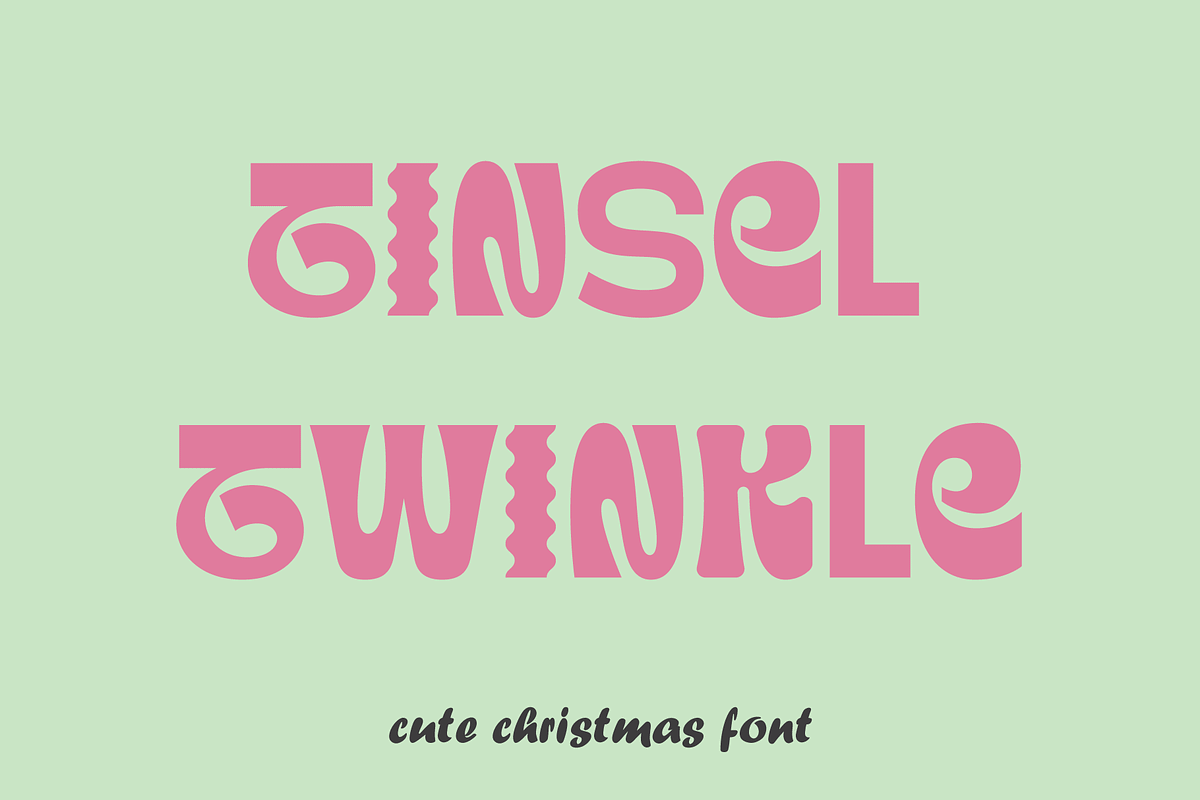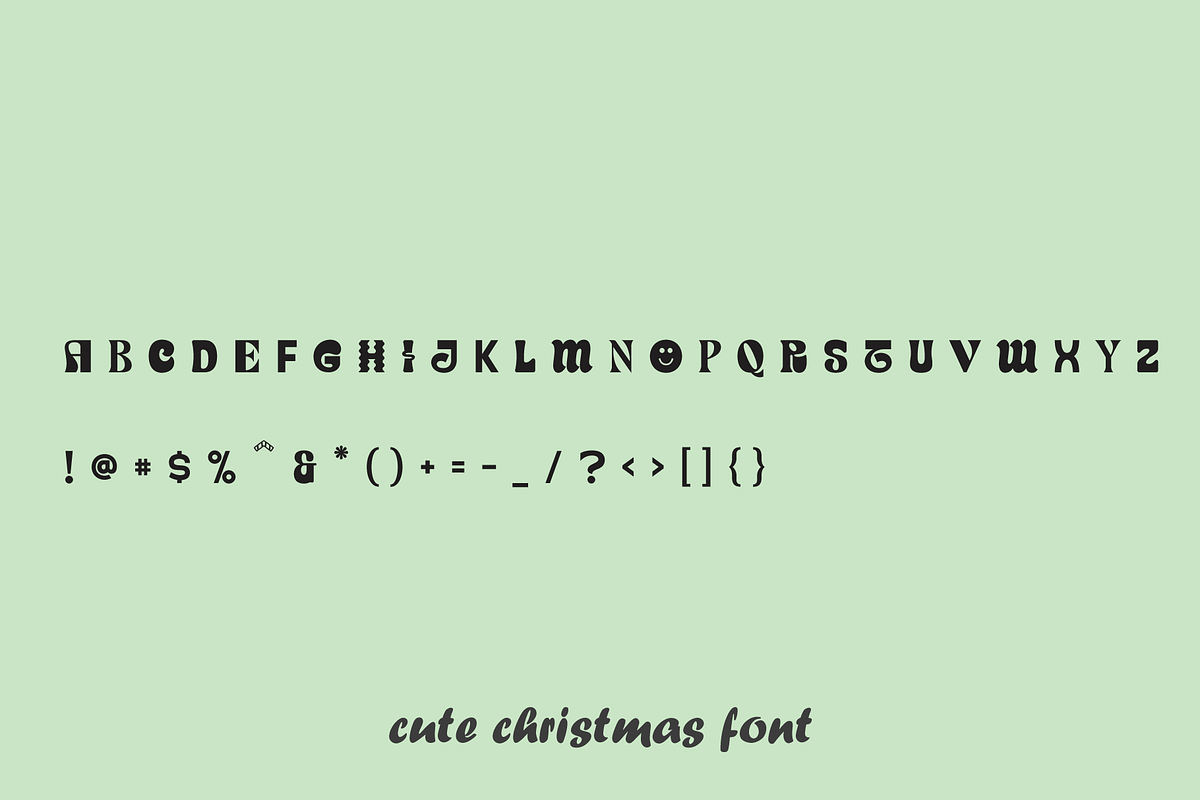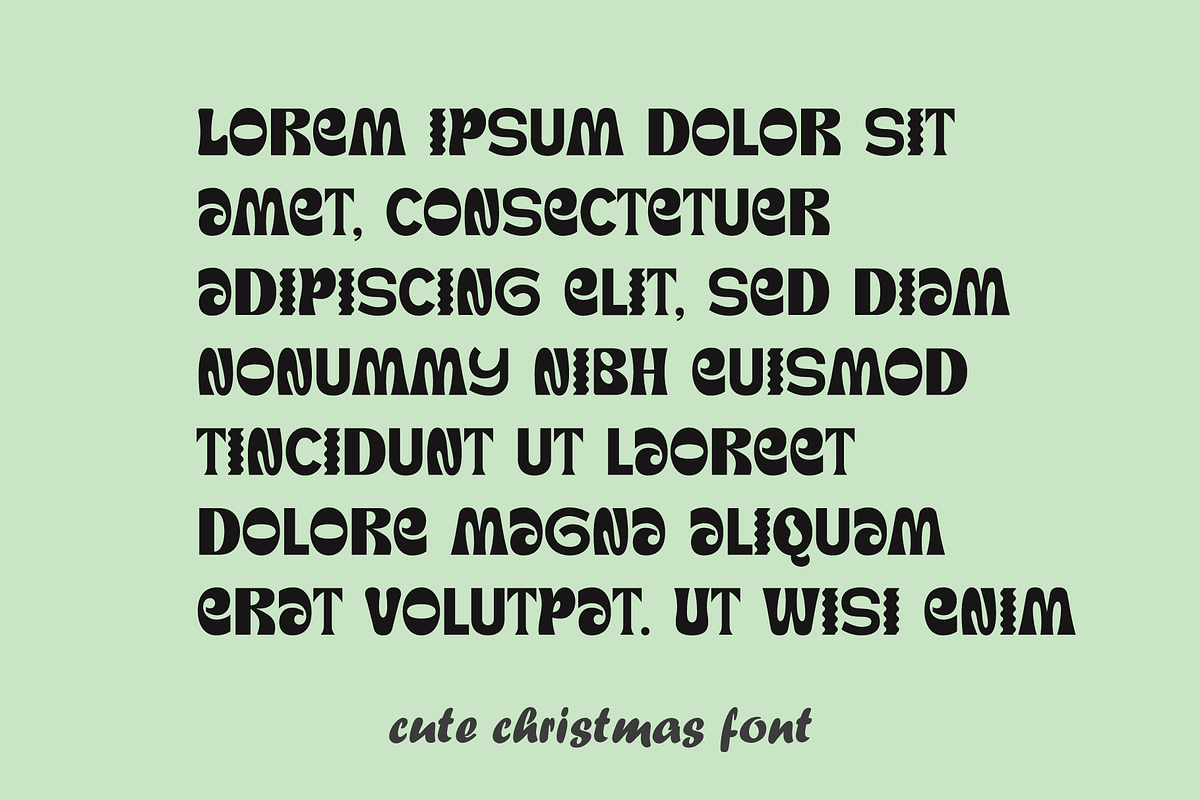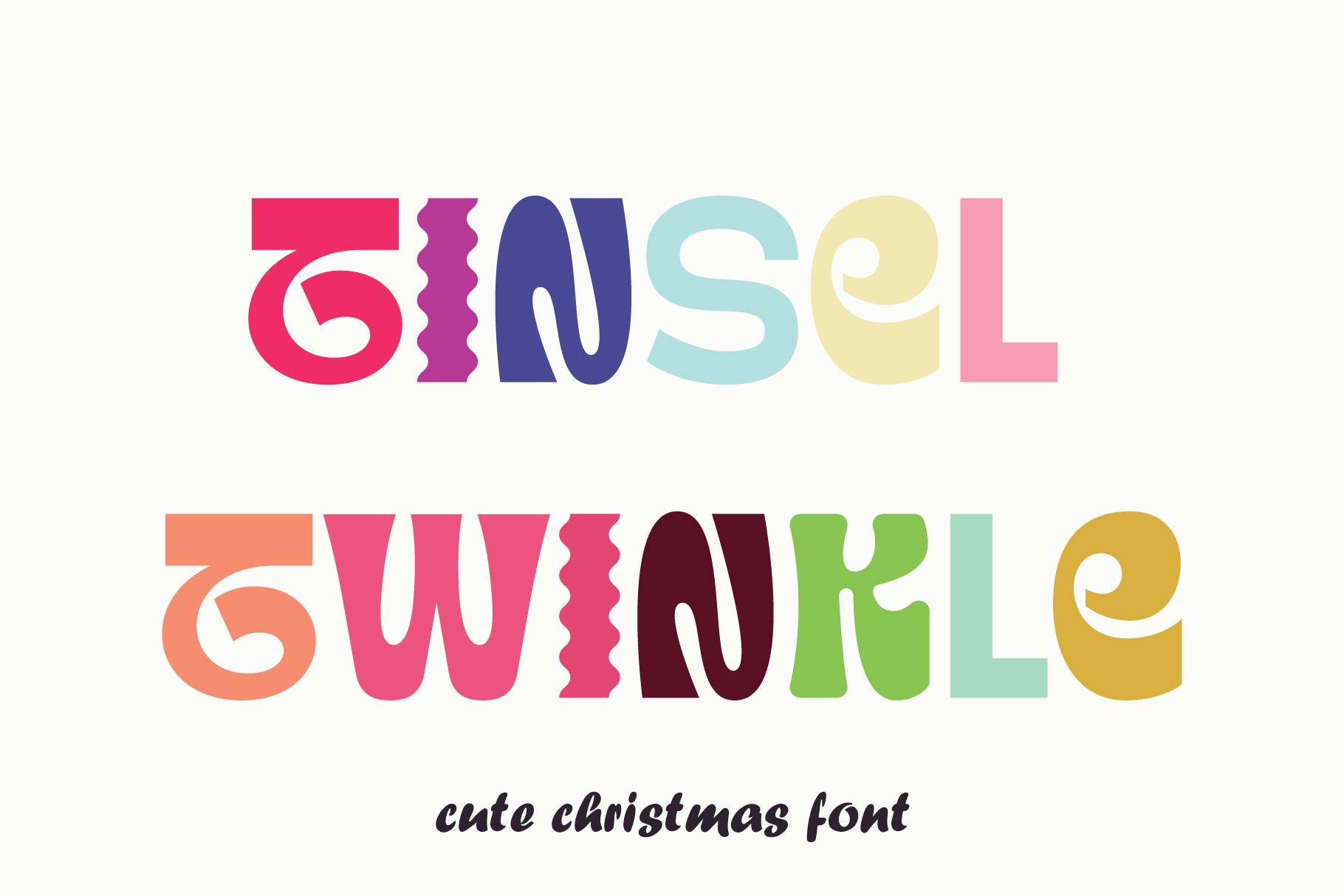
Tinsel Twinkle Christmas font
Tinsel Twinkle is a trendy handwritten font with a contemporary atmosphere and impeccable form, inspired by timeless classic calligraphy. It will add elegance and class to any of your design projects.